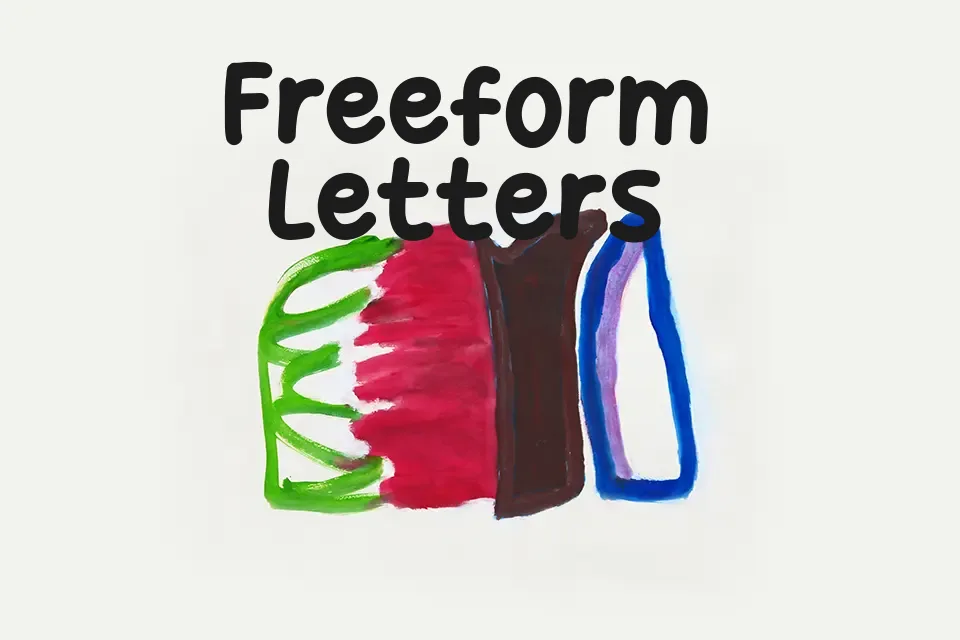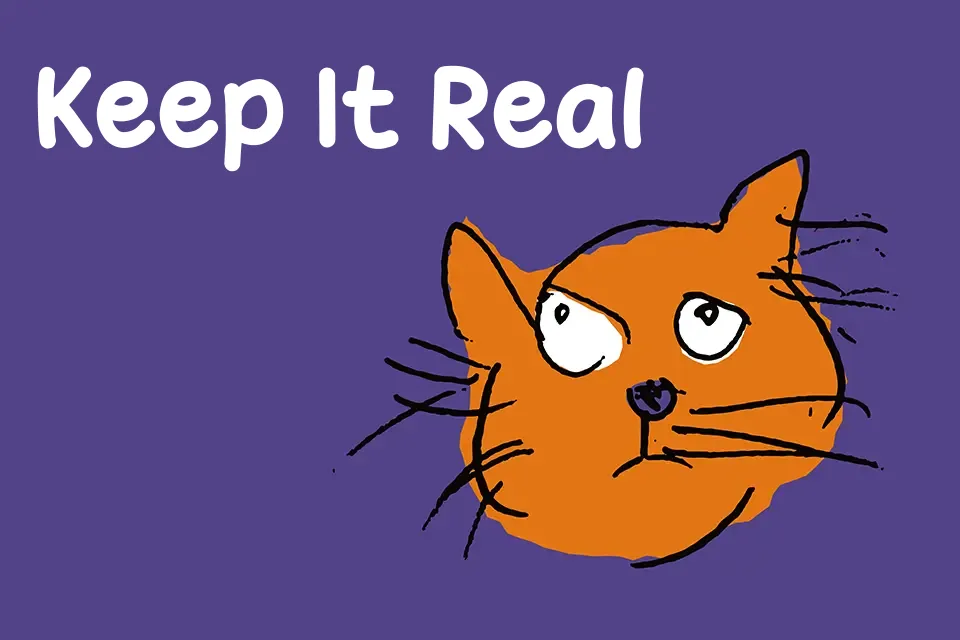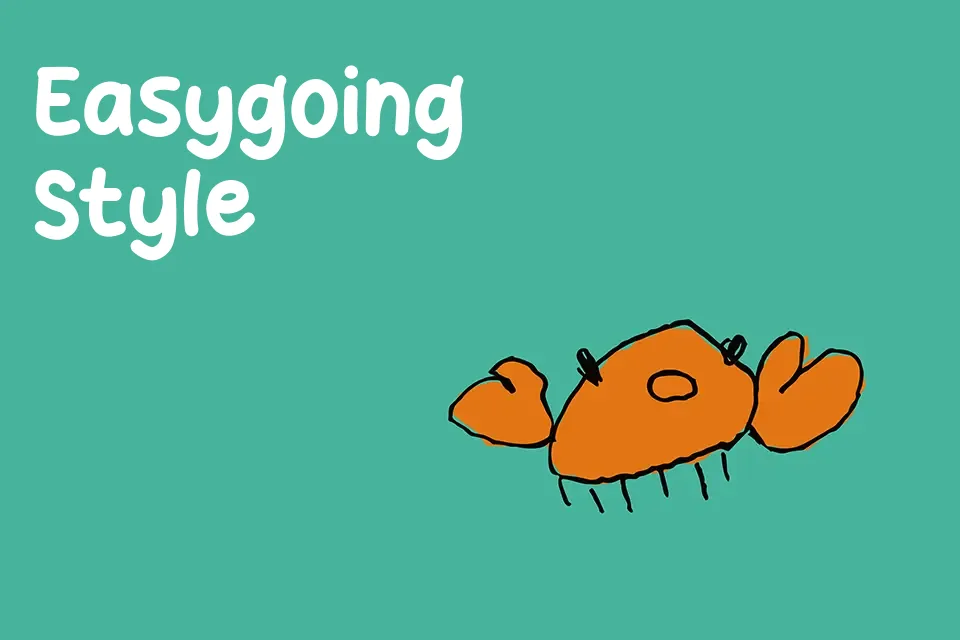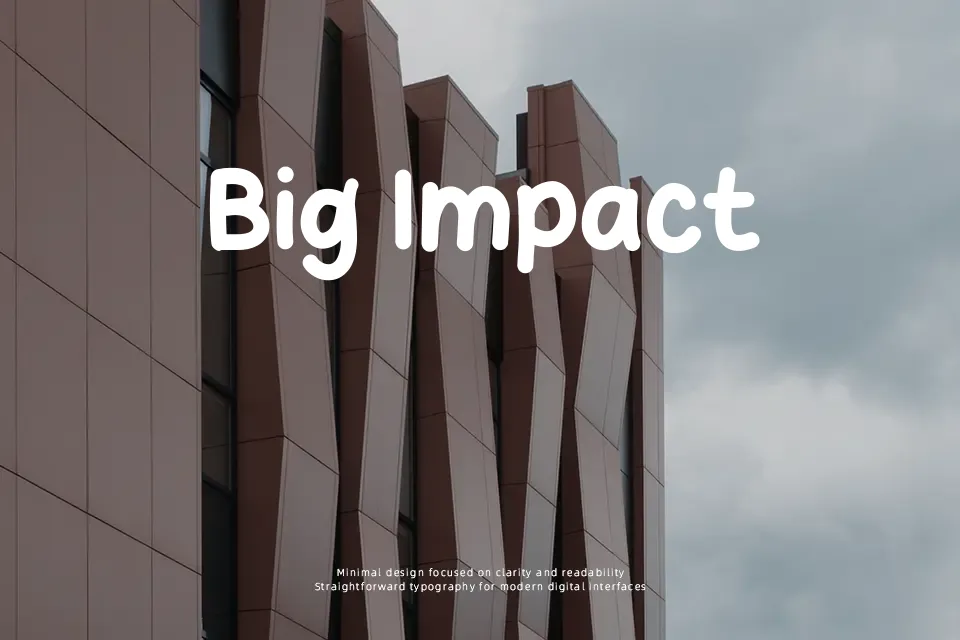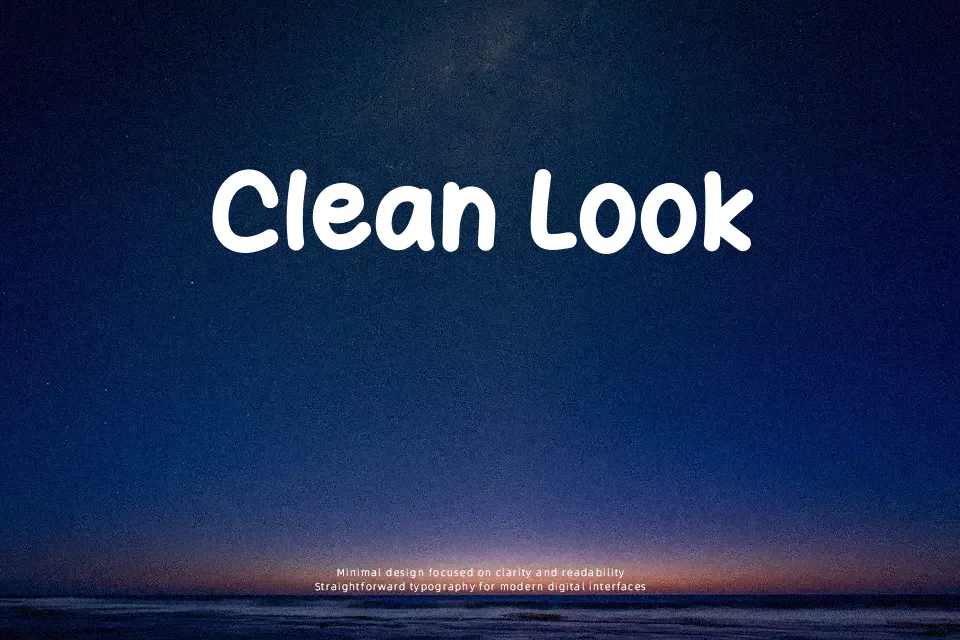
Chekgu Oke Font
Chekgu Oke Font features chunky, hand-drawn letterforms built with smooth contours, heavy stroke weights, and minimal line contrast. Generous interior counters balance the thick outlines, while slightly irregular baselines give the design an energetic, comic-inspired presence. Proportions remain wide and upright, supported by comfortable letter spacing that prevents adjacent glyphs from colliding in headline arrangements. The typeface excels in animated title screens, juvenile product packaging, and festival posters where personality takes precedence. However, dense character bodies and heavy visual mass make the design ill-suited for continuous body text, as extended paragraphs quickly lose legibility at smaller scales.
Best For: children’s book covers, toy product packaging, animated video title cards, casual event posters
Not Ideal For: long body text paragraphs, formal legal documents, technical manuals, dense mobile app interfaces